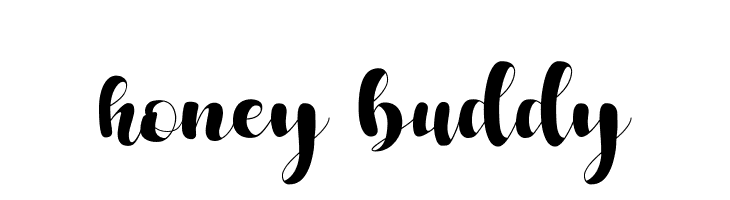
A bold, italic, and condensed font with a modern and dynamic style.
A playful, dynamic handwritten font with fluid, whimsical strokes.
A modern, rounded sans-serif font with excellent readability.
A bold, distressed font with a vintage, rugged appearance.
A bold, energetic script font with a hand-drawn feel and dynamic strokes.
A dynamic and energetic script font with fluid, cursive strokes.
A bold, condensed, and italic font with high contrast, perfect for striking headlines.
A flowing, cursive font with a natural handwritten style.
A dynamic, expressive handwritten font with fluid strokes and artistic flair.
A graceful and flowing script font with a handwritten appearance.
设计师偏爱 Eastman Cnd Trial DmBold Ita, Dinamica, REDRING 1969, LaPresse and Rontlexy,因为其造型干净、适用范围广—— 从品牌识别到落地页、海报都能胜任。